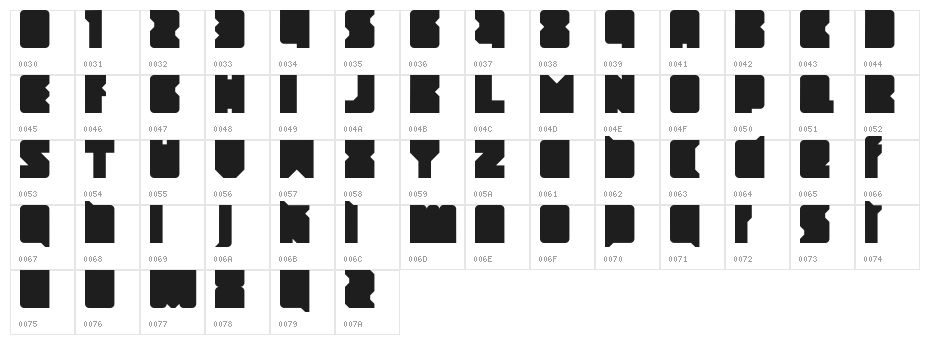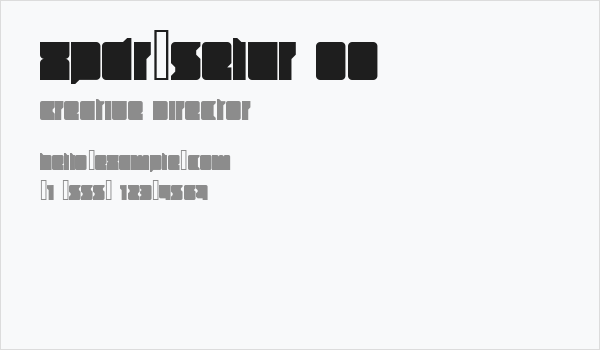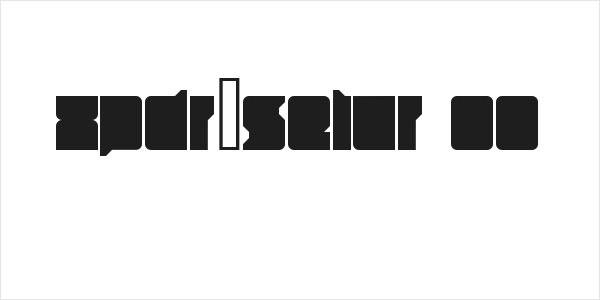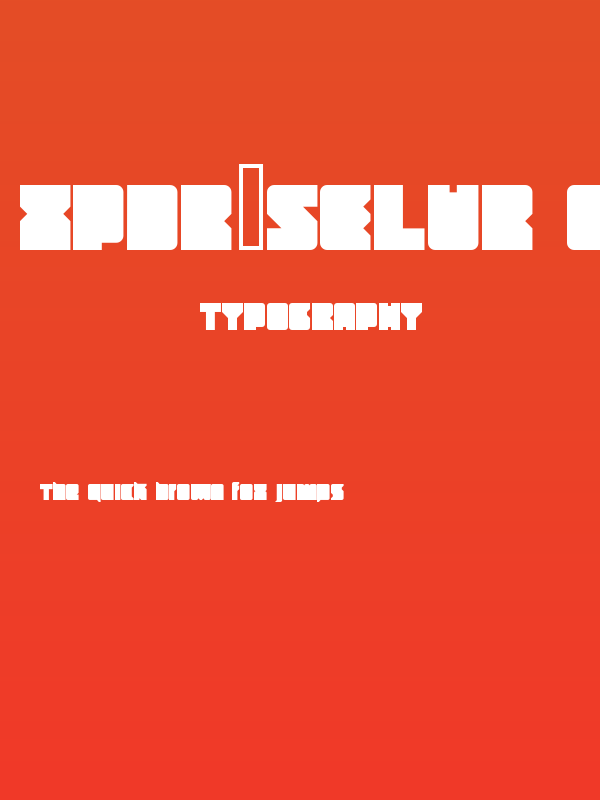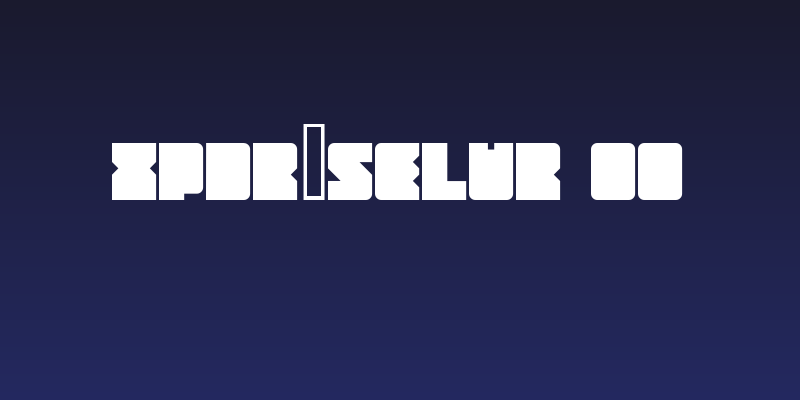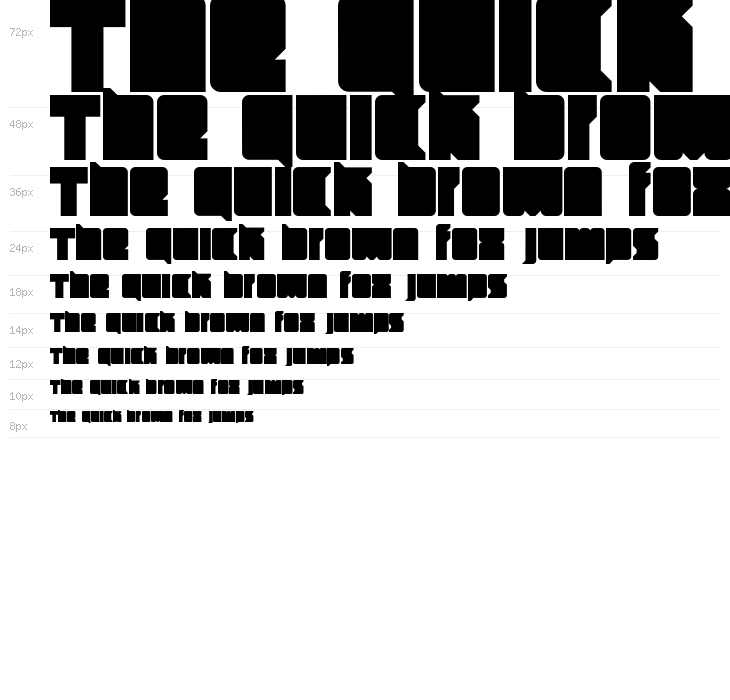
xpdr_selur 00 Font
xpdr_selur 00 Description
This font exhibits a bold and geometric style, characterized by its blocky and solid letterforms. Each character is designed with a consistent width, creating a uniform and cohesive appearance. The font features sharp angles and straight lines, giving it a modern and industrial feel. The uppercase and lowercase letters maintain a similar structure, enhancing readability while preserving its distinctive style. The numbers and special characters follow the same design principles, ensuring a harmonious look across all elements. This font's unique aesthetic makes it stand out, making it suitable for projects that require a strong visual impact.
| Proposed Projects | Ideal for branding, posters, headlines, and any project that requires a strong, impactful visual presence. |